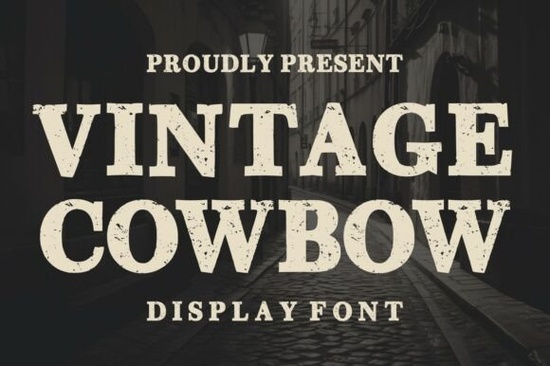
If you're working on a western-themed project and need a typeface that genuinely looks like it belongs on an old saloon sign, the Vintage Cowboy Font is worth a close look. It features bold serif shapes and a distressed texture that feels naturally worn not just "vintage-filtered" like many display fonts you'll find online.
Designed for western-themed designs, retro posters, apparel branding, logos, and packaging, this display font captures the spirit of classic cowboy signage without sacrificing readability. Whether you're a print-on-demand seller building t-shirt designs or a small business owner developing a rustic brand identity, it delivers that authentic Wild West atmosphere right out of the box.
What Projects Work Best With a Western Display Font?
A bold, distressed typeface like this one isn't built for body text and that's exactly the point. It performs well in situations where you want to grab attention quickly and set a specific mood. Here are some strong use cases:
- T-shirt and apparel designs rodeo events, country music merch, ranch branding
- Poster and flyer layouts saloon-themed parties, local festivals, event promotions
- Logo and branding work BBQ restaurants, breweries, outdoor adventure companies
- Packaging and labels hot sauce bottles, jerky brands, handmade craft goods
- Social media graphics Instagram posts, YouTube thumbnails, Etsy shop banners
- DIY crafts and home decor wooden signs, wedding decorations, farmhouse projects
The worn, rugged texture adds character without looking messy. It holds up well at large sizes, which is exactly what you need from a display font.
How Does It Compare to Other Display Fonts?
What makes the Vintage Cowboy typeface stand apart is its authentic distressed texture and classic serif structure. It doesn't just hint at a western theme it feels like one.
Is It Easy to Use for Beginners?
A few practical tips to get the most out of it:
- Use it at larger sizes. Display fonts are meant for headlines and titles, not paragraphs.
- Pair it with a clean sans-serif for any supporting text to keep things balanced.
- Add a slight rotation or arch on t-shirt designs to give it a hand-lettered, custom feel.
- Test across different sizes the distressed details show best at medium to large scales.
Does the Distressed Texture Work on Dark and Light Backgrounds?
In most cases, yes but it depends on the color you choose for the text. The worn texture creates small gaps and variations in the letterforms, which can get lost against busy or similarly-toned backgrounds.
Best practice: Use high-contrast color pairings. White text on dark wood textures, or dark brown on cream-colored backgrounds, tend to work best. Avoid placing it over detailed photographs without a solid overlay or shape behind the text.
Can I Use It for Print-on-Demand and Commercial Projects?
Before using any font commercially, always check the license terms on the product page. Most fonts on Creative Fabrica come with a commercial license covering POD, merchandise, and client work but confirming the specifics for each product is your responsibility.
For designers who sell on platforms like Redbubble, Merch by Amazon, Etsy, or Society6, having a reliable western display font in your toolkit means you can quickly build themed collections without reinventing the wheel each time.
Quick Checklist Before You Buy
- ✅ Do you need a bold, western-style display font for headlines or titles?
- ✅ Is your project theme western, rustic, vintage, or Americana?
- ✅ Will the font be used at medium to large sizes not for body copy?
- ✅ Do you have a clean companion font ready for any supporting text?